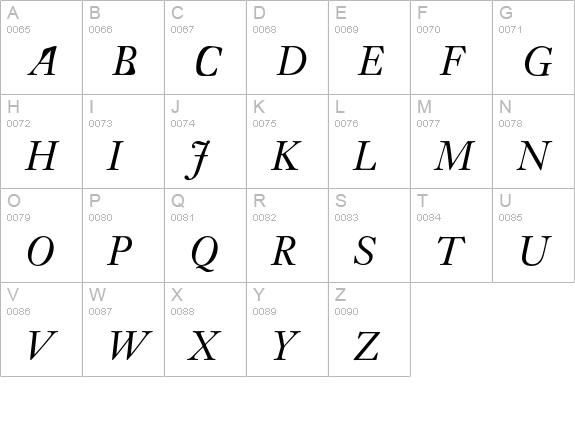
Shurpa Font Details
Shurpa font is a beautifully designed typeface that exudes elegance and sophistication. With its clean lines and modern appeal, it is the perfect choice for a wide range of creative projects. Whether you are designing a logo, creating a website, or crafting a stunning piece of typography, Shurpa font will effortlessly elevate your design to new heights. This font features a unique blend of curved and straight edges, resulting in a harmonious balance between modernity and traditionalism. Its versatility allows it to be used in various contexts, from formal documents to casual social media posts. The carefully crafted letterforms are visually appealing and legible, ensuring that your message is effectively conveyed to your audience. One of the most notable aspects of Shurpa font is that it is available for free. Yes, you read that right - this exceptional typeface can be downloaded at no cost from FontsMarket.com. This means that you can access this high-quality font without breaking the bank, making it an excellent choice for designers on a budget. The creators of Shurpa font understand the importance of accessibility, and have made it freely available so that anyone can enjoy its beauty and functionality. This generosity allows designers from all walks of life to incorporate this font into their projects, without the burden of additional expenses. So why wait? Download Shurpa font today from FontsMarket.com and experience the seamless blending of style and practicality. Whether you are a professional designer or an aspiring creative, this font will undoubtedly enhance your work and leave a lasting impression. Embrace the power of Shurpa font and take your designs to new horizons.